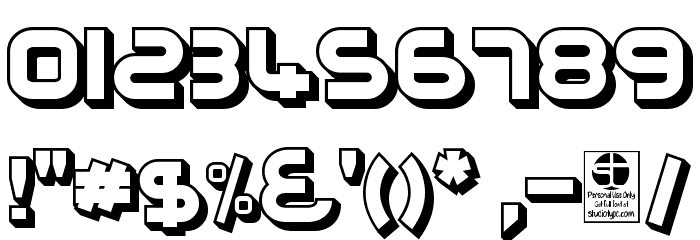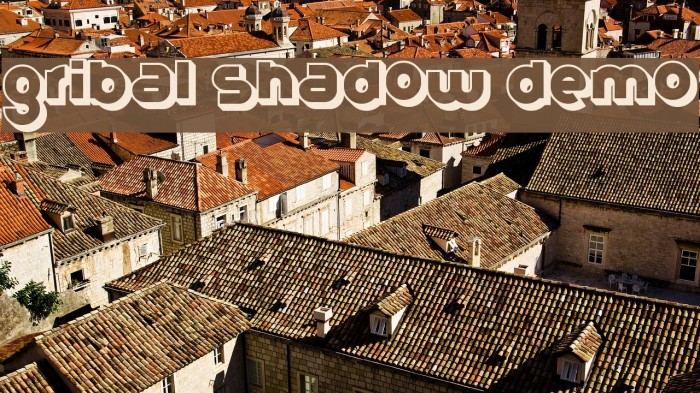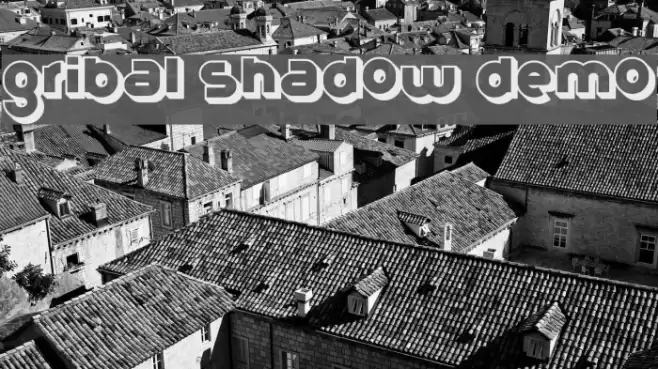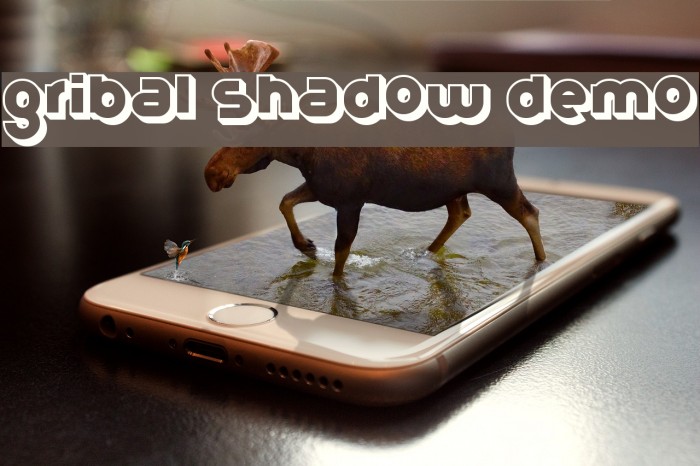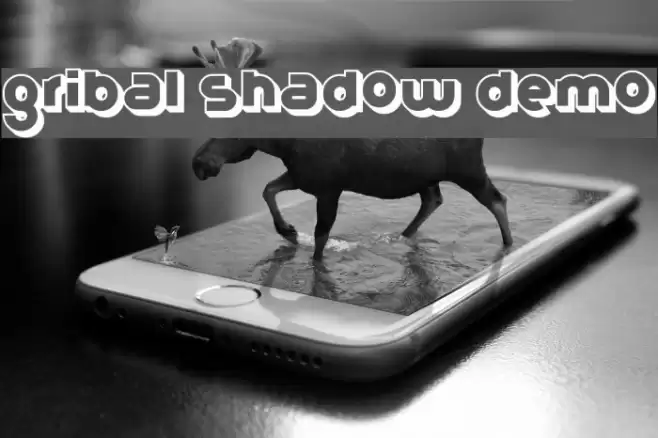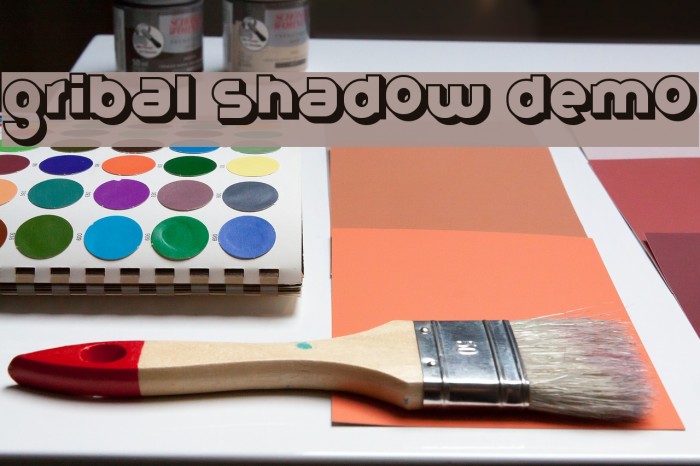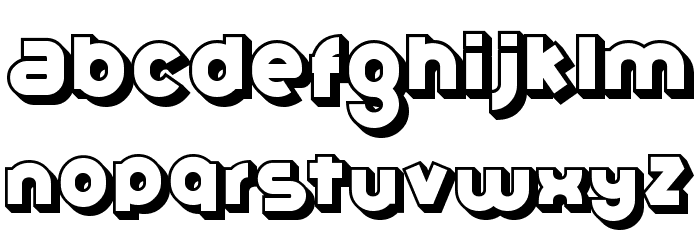
Gribal Shadow Demo Font
Gribal Shadow Demo Description
This font features a bold, playful design with a distinct shadow effect that gives it a three-dimensional appearance. The characters are rounded and thick, creating a strong visual impact. The shadow adds depth and makes the text stand out, ideal for eye-catching designs. The uppercase and lowercase letters maintain a consistent style, with smooth curves and a uniform weight. Numbers and special characters are designed to match the boldness and style of the alphabet, ensuring a cohesive look across all text elements.
A bold, playful font with a three-dimensional shadow effect from Uncategorized fonts.
• Proposed Projects: Ideal for posters, headlines, logos, and any design requiring a bold, attention-grabbing font.
• Overall Style: Modern
• Use Case: Headlines, Logos, Posters